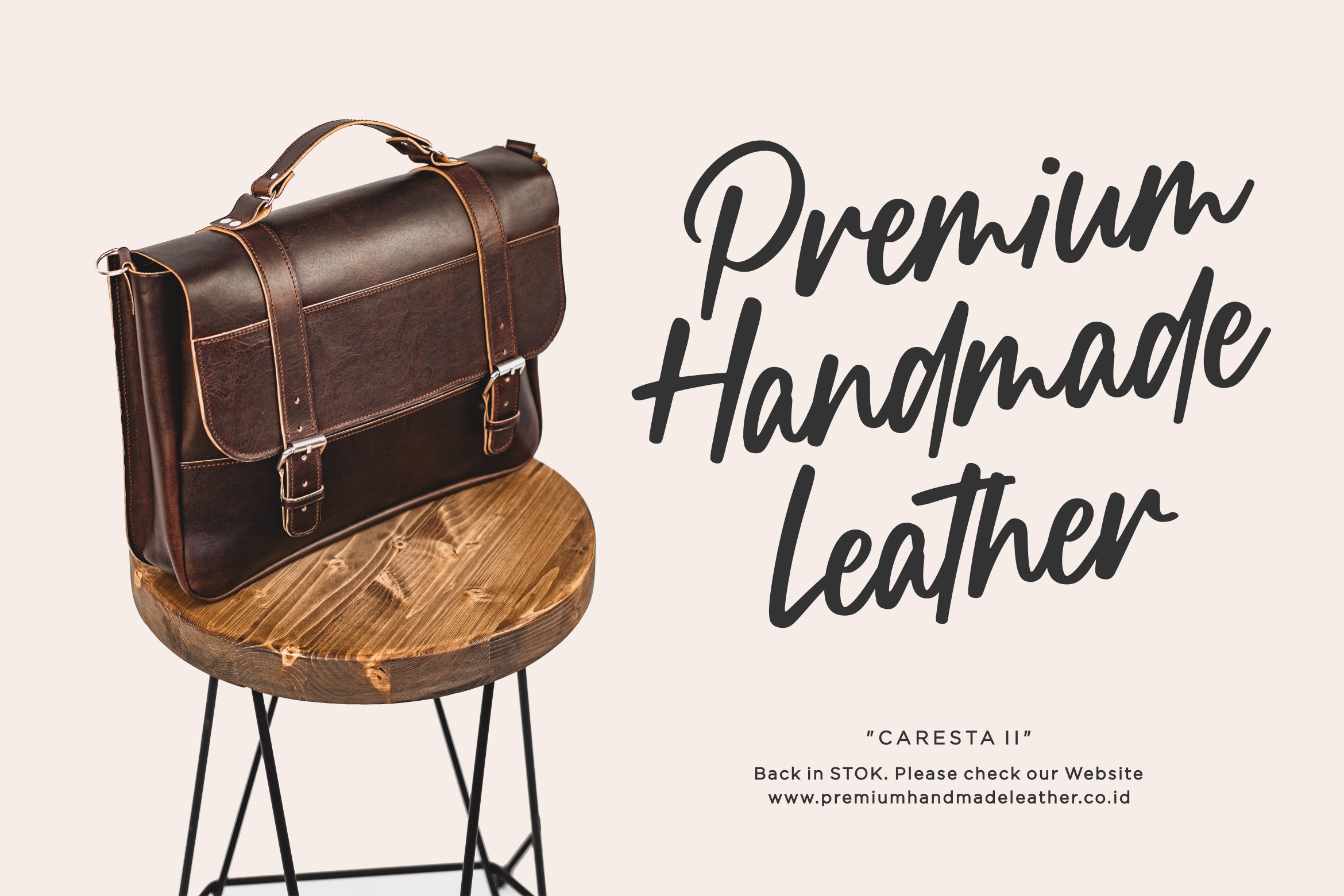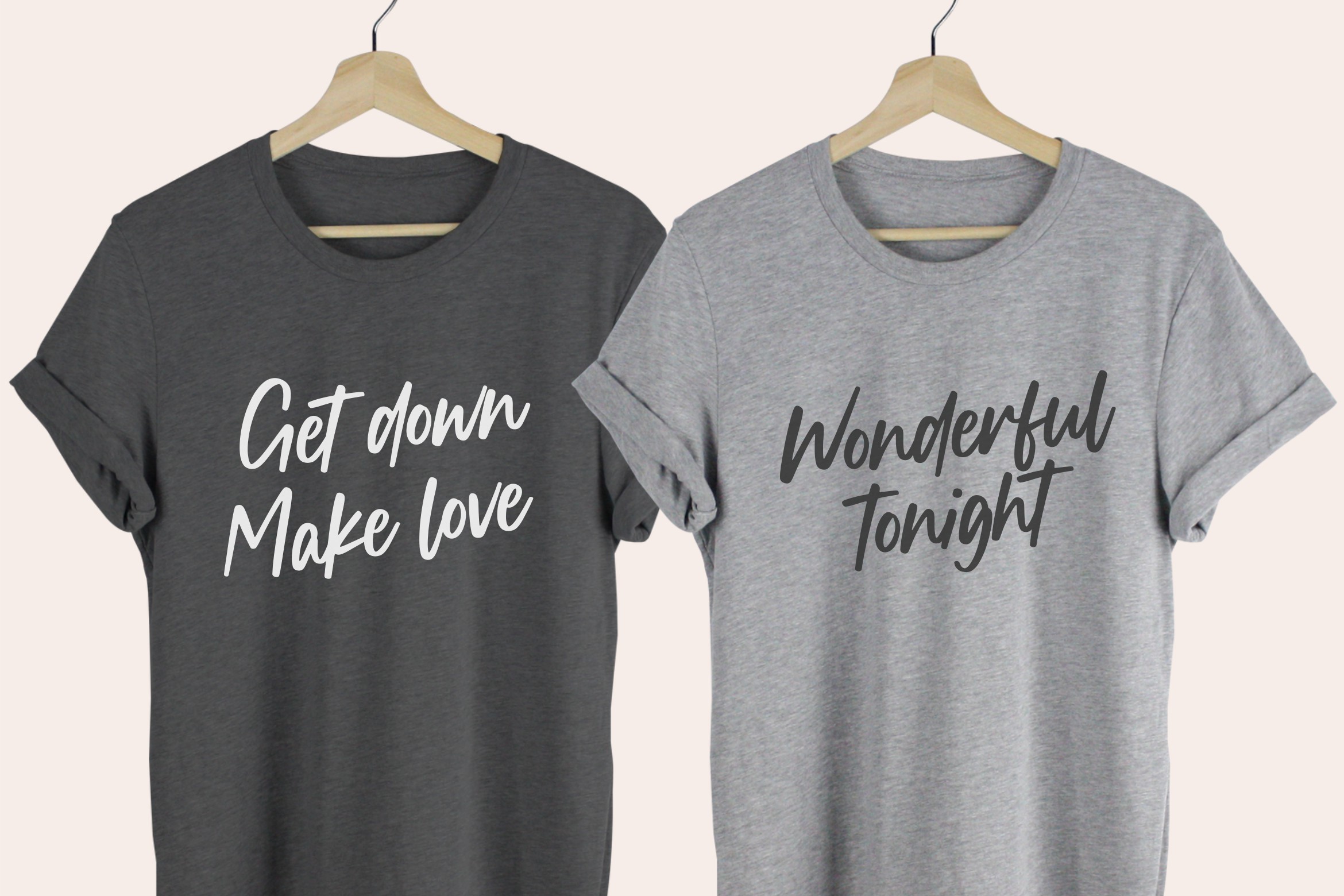
Boucik Script Font
Proudly Present, Boucik Font.
Boucik is a Modern Calligraphy Font.
Boucik is a relaxed, modern and adaptable script font. It is the best choice for creating eye catching logos, branding and quotes. Every letter has a unique and beautiful touch, which will make your design come alive!